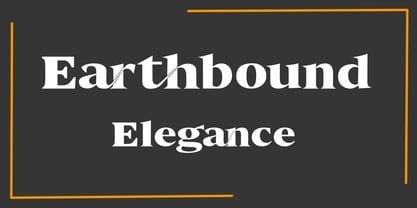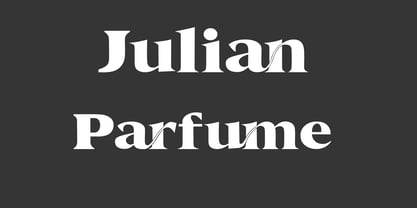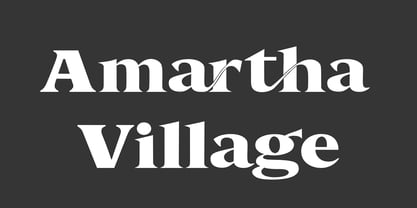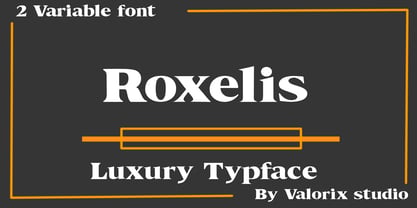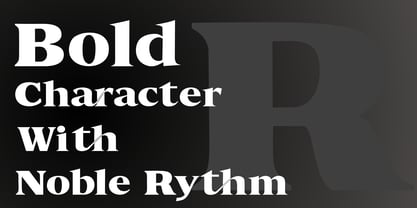
Roxelis
by Valorix Studio
The Roxelis Font Family was designed by Erick Rismawan Valorix and published by Valorix Studio. Roxelis contains 2 styles and family package options. More about this family
Introducing Roxelis, a bold serif display typeface crafted to radiate luxury, confidence, and timeless elegance. With its extra bold structure, sharp contrast, and refined vintage touch, Roxelis transforms every headline into a grand visual statement. Perfect for branding, editorial layouts, luxury packaging, hotel identities, fashion campaigns, logos, and premium typography projects.
Roxelis comes in 2 variable styles, allowing flexibility from strong commanding titles to more refined elegant compositions. Every curve and serif is designed with a dramatic presence, creating a rich cinematic atmosphere on both modern and classic designs. ✦
To enhance the typography experience, Roxelis also includes carefully crafted stylistic ligatures such as:
ar
an
th
um
These ligatures create smoother letter connections and a more sophisticated rhythm, adding exclusivity and artistic charm to your typography compositions.
Roxelis is where bold elegance meets decorative sophistication.
Designers: Erick Rismawan Valorix
Foundry: Valorix Studio